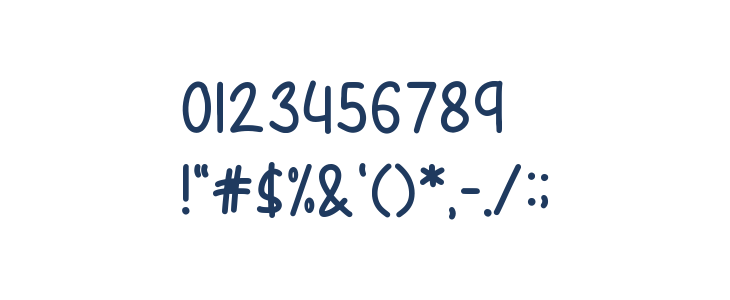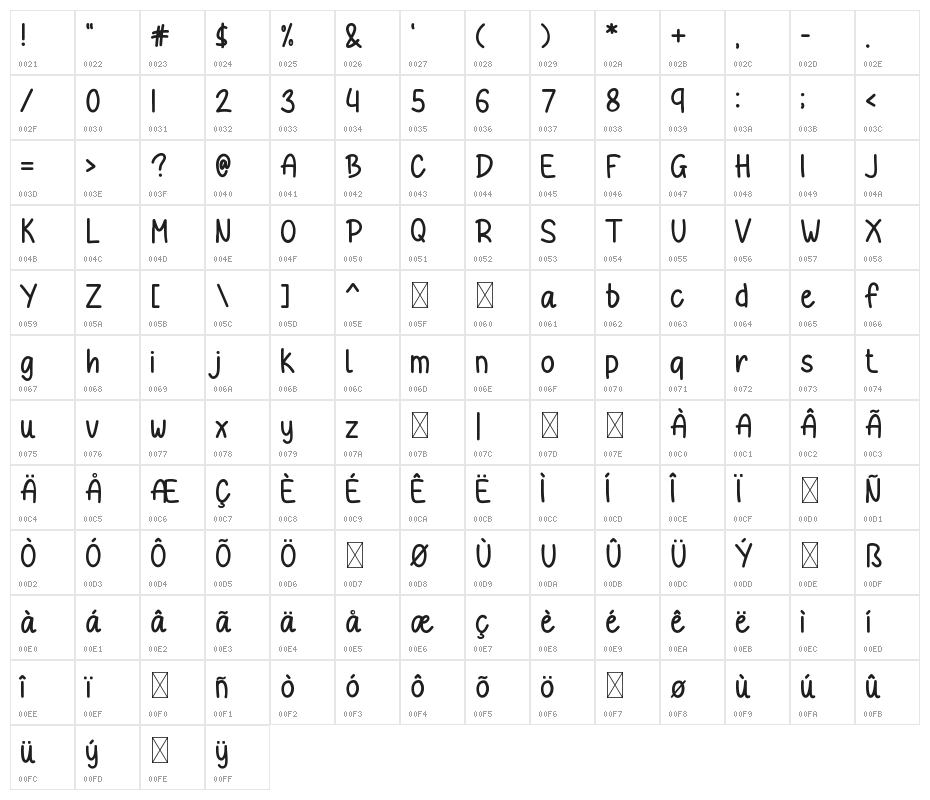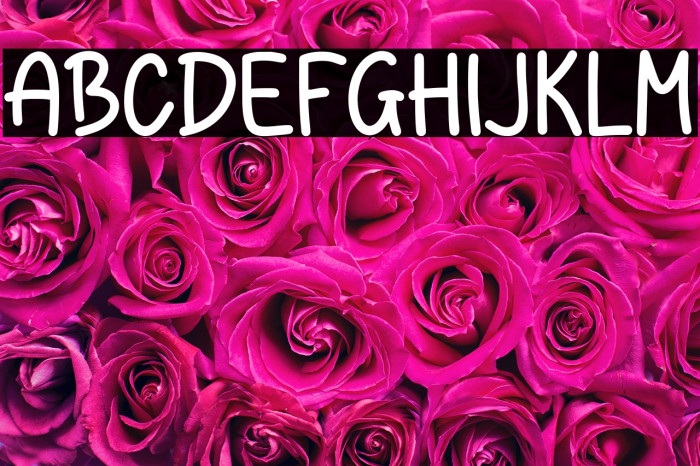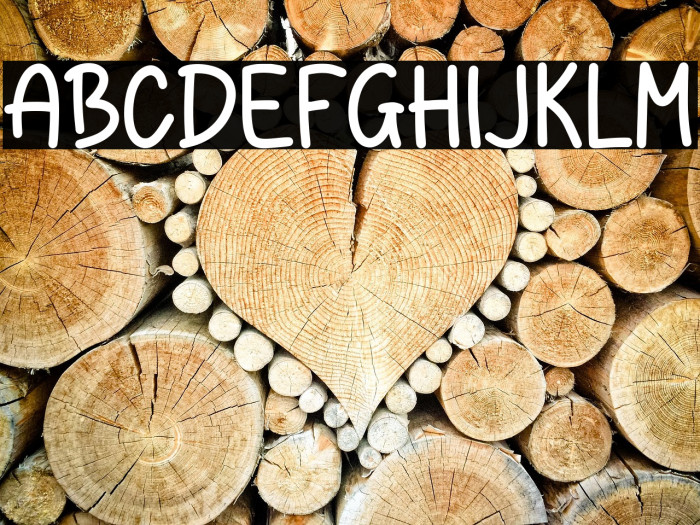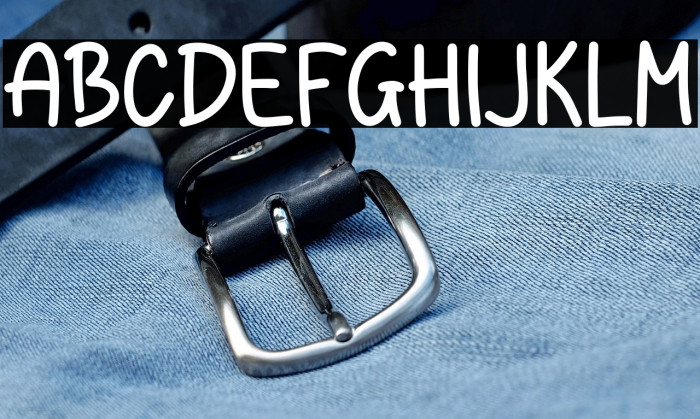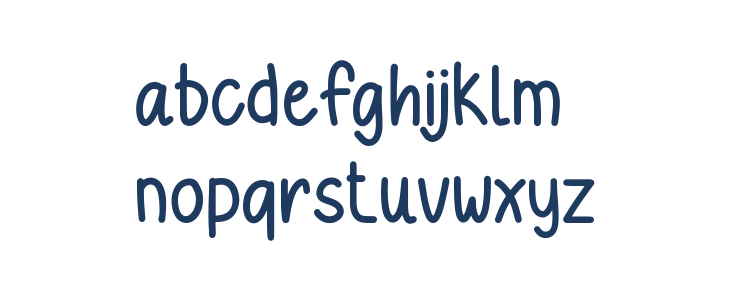
Doggie Font
Doggie Description
This playful and whimsical font features rounded, hand-drawn characters that convey a sense of fun and informality. The letters are slightly irregular, adding a personal touch that mimics handwriting. The strokes are consistent in width, giving it a uniform appearance while maintaining a casual vibe. This font includes a full set of uppercase and lowercase letters, numbers, and a variety of special characters, making it versatile for different uses. Its friendly and approachable style makes it ideal for projects that require a lighthearted and engaging look.
Overall StyleCasual
Use CaseHeadlines, Logos, Informal Text
Proposed ProjectsIdeal for children's books, greeting cards, playful branding, and social media graphics.